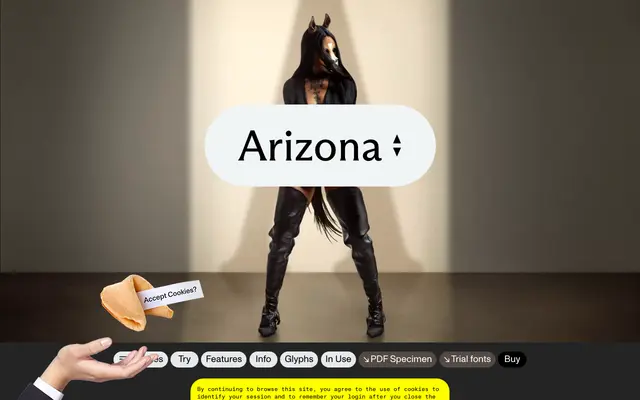
ABC Arizona
A five-genre superfamily by Elias Hanzer that travels from high-contrast serif to humanist grotesque inside a single variable font file.
A sans-to-serif superfamily designed by Elias Hanzer with Alex Lescieux that bundles Serif, Text, Mix, Flare and Sans into one variable font. Each subfamily carries three widths (Standard, Condensed, Compressed) across five weights with italics, so a single license can move from Renaissance-flavoured display serif into a humanist grotesque without leaving the file. Reach for it when an editorial system or campaign needs to flex tone across the same letterforms.
Dinamo describes Arizona as the first ever sans-to-serif superfamily packaged into a single variable font file, with five looks (Serif, Text, Mix, Flare, Sans) and three widths (Standard, Condensed, Compressed) at five weights plus italics.